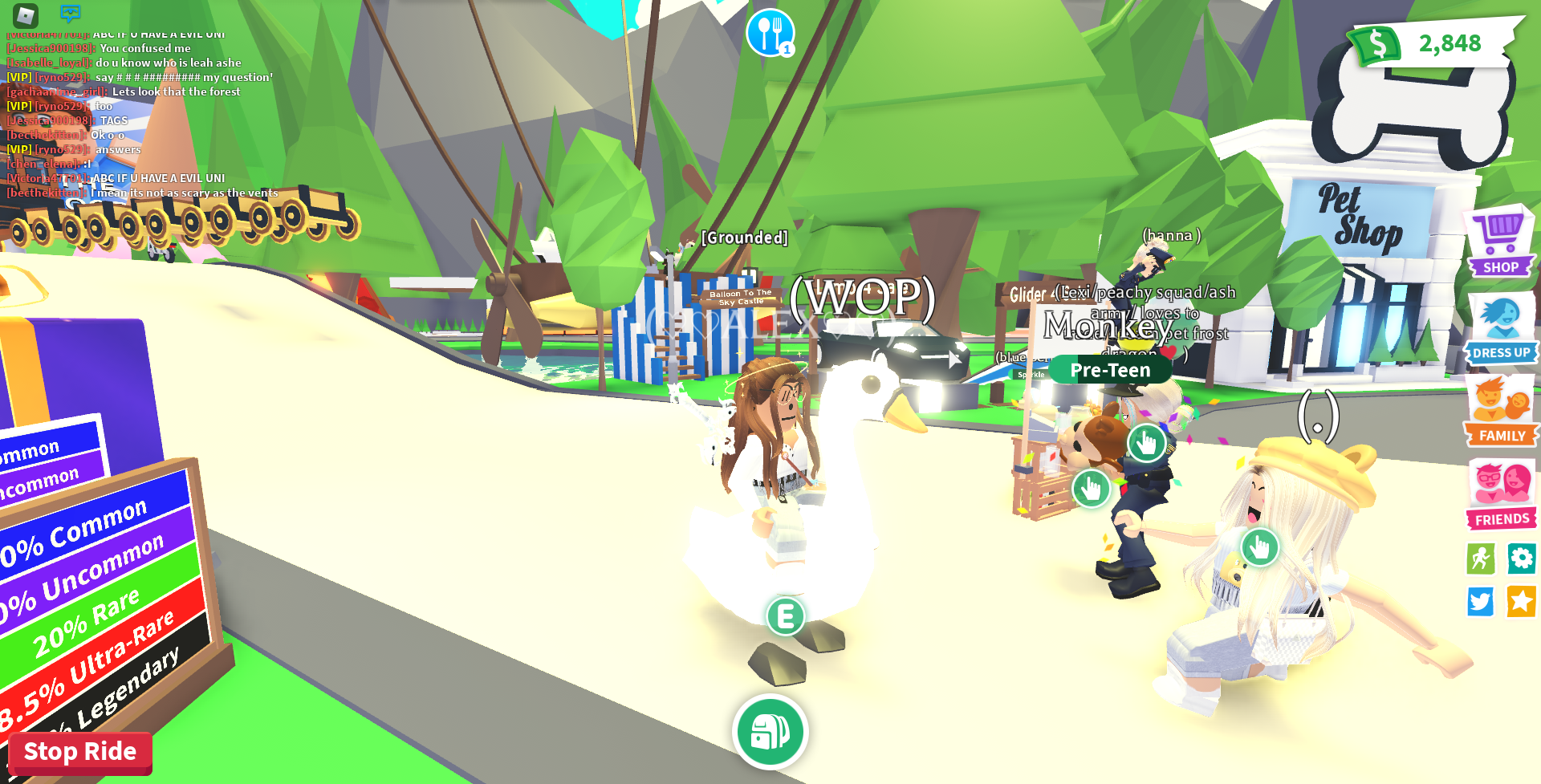
Adopt Me Fonts Copy And Paste
Adopt Me Fonts Copy And Paste - By default, whenever you name a pet in adopt me, it has the same basic font. You can change their name. Try this adopt me font generator for your business logo design. Type some normal text in the box and it'll be ๐๐๐๐๐๐๐ into a ๐ต๐๐ด๐ฒ number of different ๐ผ๐น๐ฎ๐ฌ๐ฒ๐ช๐ต ๐๐๐๐๐ that you can use on instagram, twitter, facebook, tiktok, and most other social media platforms. Not only do they add a professional look,. How to customize pets names with peppy fonts in roblox adopt me! Fancy fonts online is the advanced tool that converts your entered text to cool adopt me fonts. See above for 'adopt+me' different fonts! That includes adopt+me in cursive, adopt+me in bold, italic, gothic/medieval, cute/aesthetic, curly, monospace, and lots more. Nicknames for games, profiles, brands or social networks.
See above for 'adopt+me' different fonts! Not only do they add a professional look,. Type some normal text in the box and it'll be ๐๐๐๐๐๐๐ into a ๐ต๐๐ด๐ฒ number of different ๐ผ๐น๐ฎ๐ฌ๐ฒ๐ช๐ต ๐๐๐๐๐ that you can use on instagram, twitter, facebook, tiktok, and most other social media platforms. That includes adopt+me in cursive, adopt+me in bold, italic, gothic/medieval, cute/aesthetic, curly, monospace, and lots more. Fancy fonts online is the advanced tool that converts your entered text to cool adopt me fonts. Nicknames for games, profiles, brands or social networks. How to customize pets names with peppy fonts in roblox adopt me! By default, whenever you name a pet in adopt me, it has the same basic font. You can change their name. Try this adopt me font generator for your business logo design.
By default, whenever you name a pet in adopt me, it has the same basic font. Nicknames for games, profiles, brands or social networks. How to customize pets names with peppy fonts in roblox adopt me! That includes adopt+me in cursive, adopt+me in bold, italic, gothic/medieval, cute/aesthetic, curly, monospace, and lots more. Fancy fonts online is the advanced tool that converts your entered text to cool adopt me fonts. Type some normal text in the box and it'll be ๐๐๐๐๐๐๐ into a ๐ต๐๐ด๐ฒ number of different ๐ผ๐น๐ฎ๐ฌ๐ฒ๐ช๐ต ๐๐๐๐๐ that you can use on instagram, twitter, facebook, tiktok, and most other social media platforms. See above for 'adopt+me' different fonts! Not only do they add a professional look,. Try this adopt me font generator for your business logo design. You can change their name.
๐๐ฑ๐ผ๐ฝ๐ ๐บ๐ฒ (๐๐๐ป๐ ๐๐) ฯััฯฯั ฯัั ะธฮฑะผัั!! Preppy names, Cute adopt me pet
Nicknames for games, profiles, brands or social networks. You can change their name. By default, whenever you name a pet in adopt me, it has the same basic font. Not only do they add a professional look,. Type some normal text in the box and it'll be ๐๐๐๐๐๐๐ into a ๐ต๐๐ด๐ฒ number of different ๐ผ๐น๐ฎ๐ฌ๐ฒ๐ช๐ต ๐๐๐๐๐ that you can use.
Fancy fonts online is the advanced tool that converts your entered text to cool adopt me fonts. That includes adopt+me in cursive, adopt+me in bold, italic, gothic/medieval, cute/aesthetic, curly, monospace, and lots more. By default, whenever you name a pet in adopt me, it has the same basic font. Not only do they add a professional look,. See above for.
Type some normal text in the box and it'll be ๐๐๐๐๐๐๐ into a ๐ต๐๐ด๐ฒ number of different ๐ผ๐น๐ฎ๐ฌ๐ฒ๐ช๐ต ๐๐๐๐๐ that you can use on instagram, twitter, facebook, tiktok, and most other social media platforms. You can change their name. How to customize pets names with peppy fonts in roblox adopt me! Try this adopt me font generator for your business.
'Adopt me' in Different Font Stlye (๐ฌ๐ธ๐น๐ ๐๐๐ ๐ ๐ถ๐๐๐)
See above for 'adopt+me' different fonts! That includes adopt+me in cursive, adopt+me in bold, italic, gothic/medieval, cute/aesthetic, curly, monospace, and lots more. How to customize pets names with peppy fonts in roblox adopt me! By default, whenever you name a pet in adopt me, it has the same basic font. Nicknames for games, profiles, brands or social networks.
Fonts for adopt me
How to customize pets names with peppy fonts in roblox adopt me! See above for 'adopt+me' different fonts! You can change their name. That includes adopt+me in cursive, adopt+me in bold, italic, gothic/medieval, cute/aesthetic, curly, monospace, and lots more. Type some normal text in the box and it'll be ๐๐๐๐๐๐๐ into a ๐ต๐๐ด๐ฒ number of different ๐ผ๐น๐ฎ๐ฌ๐ฒ๐ช๐ต ๐๐๐๐๐ that you.
Copy And Paste Fonts For Roblox Adopt Me
That includes adopt+me in cursive, adopt+me in bold, italic, gothic/medieval, cute/aesthetic, curly, monospace, and lots more. Try this adopt me font generator for your business logo design. By default, whenever you name a pet in adopt me, it has the same basic font. You can change their name. How to customize pets names with peppy fonts in roblox adopt me!
How To Get Special Text *FONTS* On Adopt Me Pets TUTORIAL ๐ YouTube
See above for 'adopt+me' different fonts! You can change their name. That includes adopt+me in cursive, adopt+me in bold, italic, gothic/medieval, cute/aesthetic, curly, monospace, and lots more. By default, whenever you name a pet in adopt me, it has the same basic font. Nicknames for games, profiles, brands or social networks.
How to Customize Pets Names with Peppy Fonts in Roblox Adopt Me
How to customize pets names with peppy fonts in roblox adopt me! By default, whenever you name a pet in adopt me, it has the same basic font. Try this adopt me font generator for your business logo design. Not only do they add a professional look,. See above for 'adopt+me' different fonts!
(โงแโฆ) Happy fonts โธ(หถยด ห `หถ)โธ (๐๐๐๐ ๐๐๐ ๐๐๐๐๐) ๐ preppy fonts
You can change their name. Type some normal text in the box and it'll be ๐๐๐๐๐๐๐ into a ๐ต๐๐ด๐ฒ number of different ๐ผ๐น๐ฎ๐ฌ๐ฒ๐ช๐ต ๐๐๐๐๐ that you can use on instagram, twitter, facebook, tiktok, and most other social media platforms. That includes adopt+me in cursive, adopt+me in bold, italic, gothic/medieval, cute/aesthetic, curly, monospace, and lots more. Not only do they add.
By Default, Whenever You Name A Pet In Adopt Me, It Has The Same Basic Font.
Type some normal text in the box and it'll be ๐๐๐๐๐๐๐ into a ๐ต๐๐ด๐ฒ number of different ๐ผ๐น๐ฎ๐ฌ๐ฒ๐ช๐ต ๐๐๐๐๐ that you can use on instagram, twitter, facebook, tiktok, and most other social media platforms. You can change their name. Try this adopt me font generator for your business logo design. That includes adopt+me in cursive, adopt+me in bold, italic, gothic/medieval, cute/aesthetic, curly, monospace, and lots more.